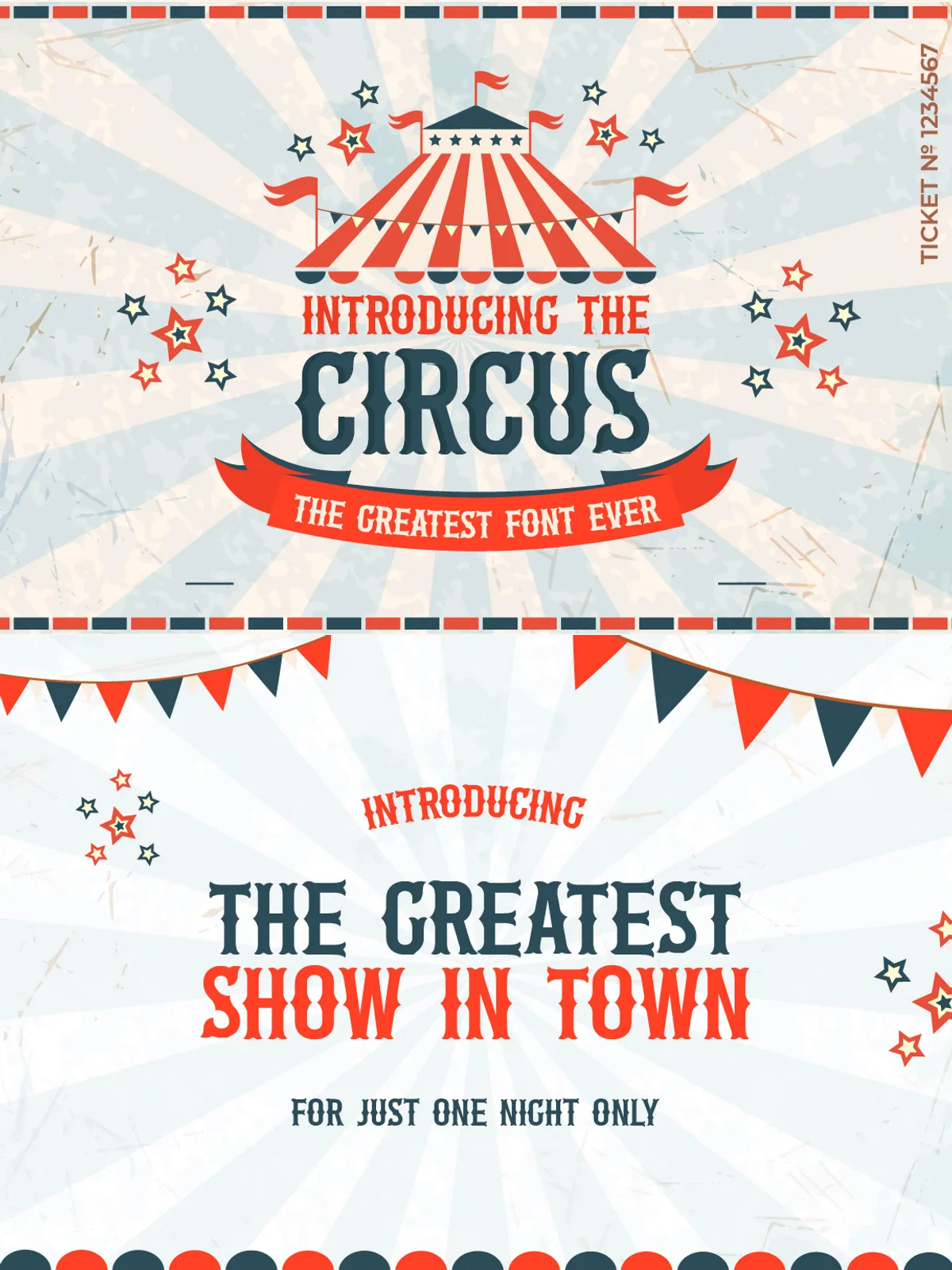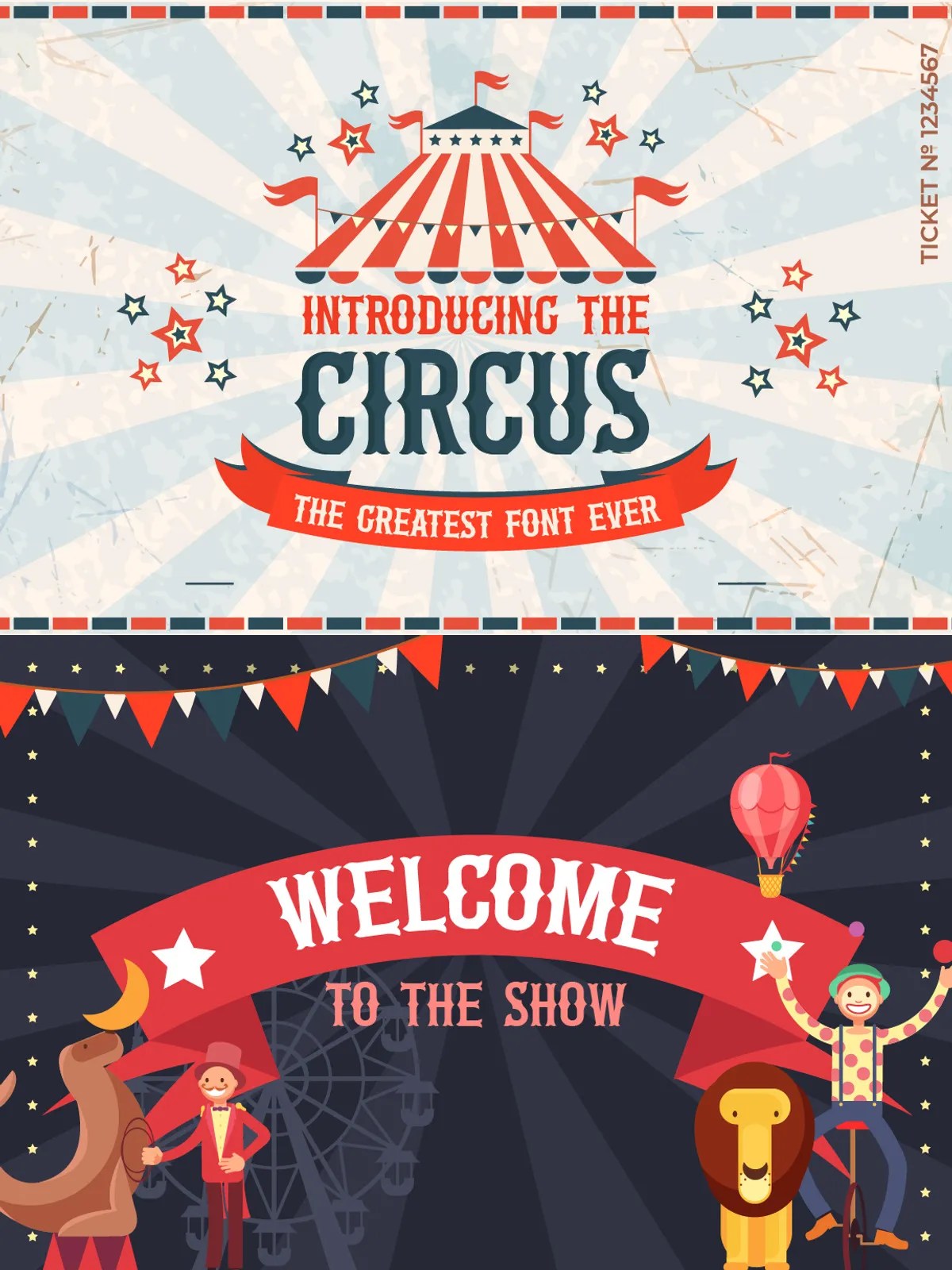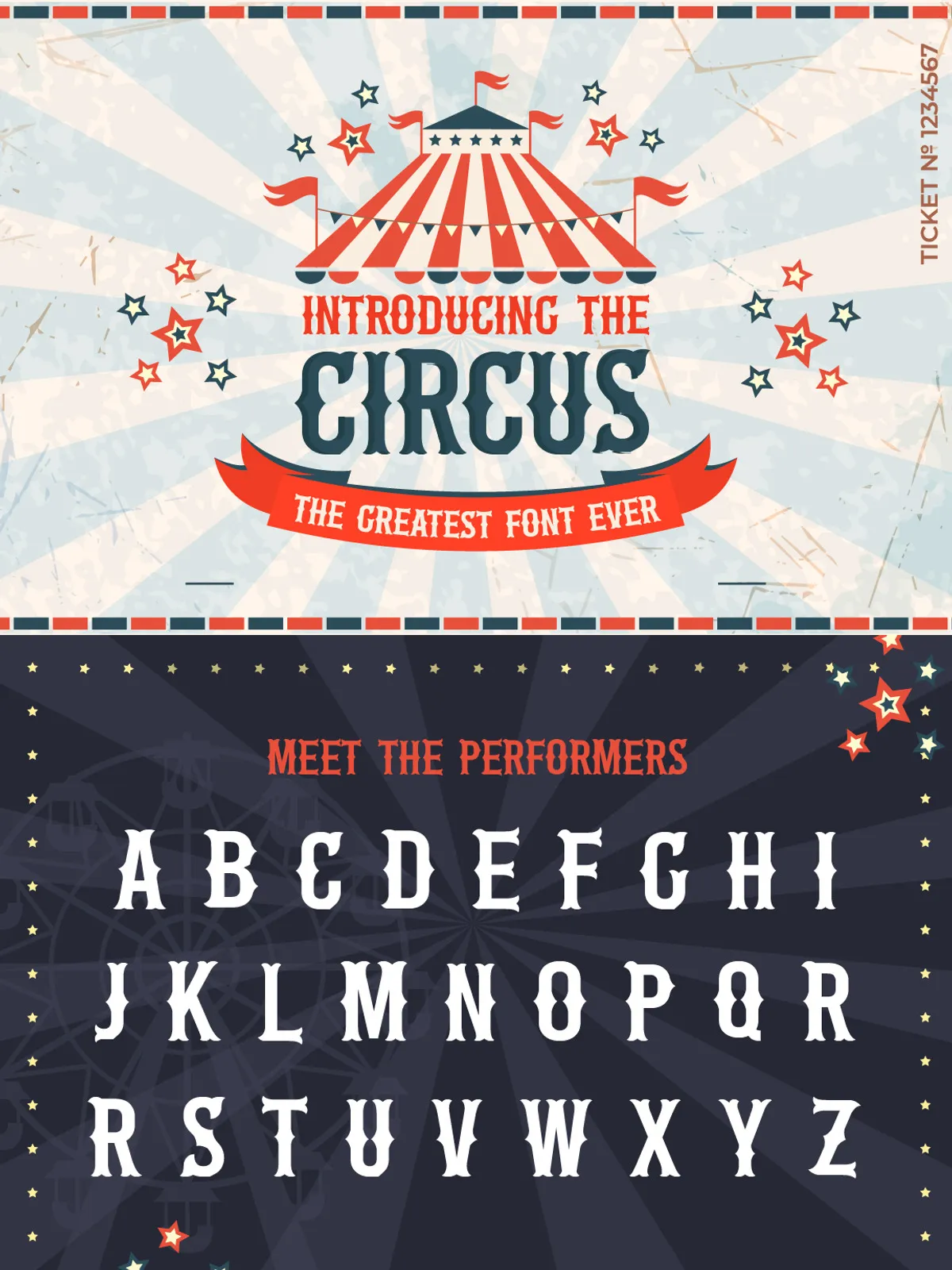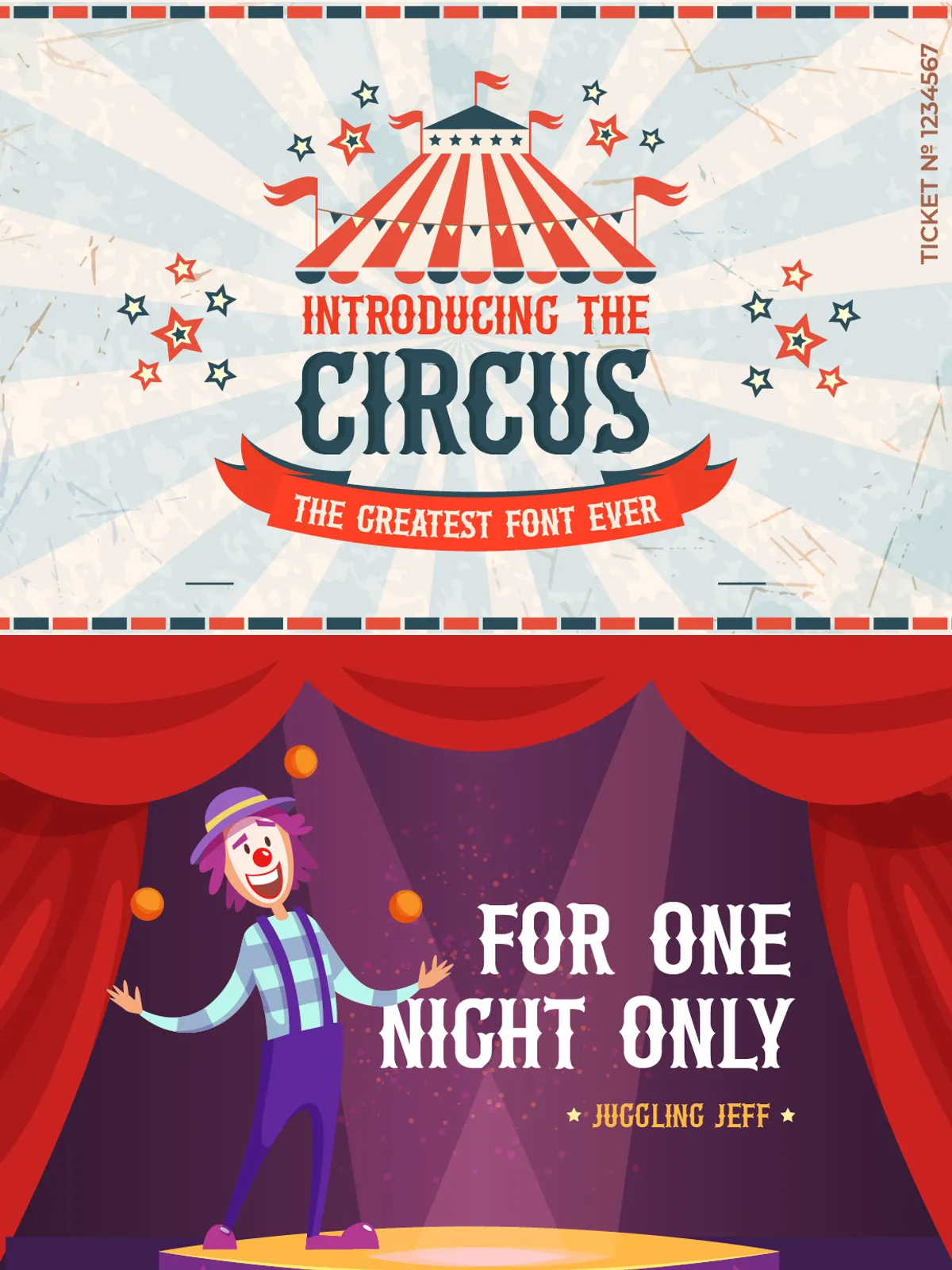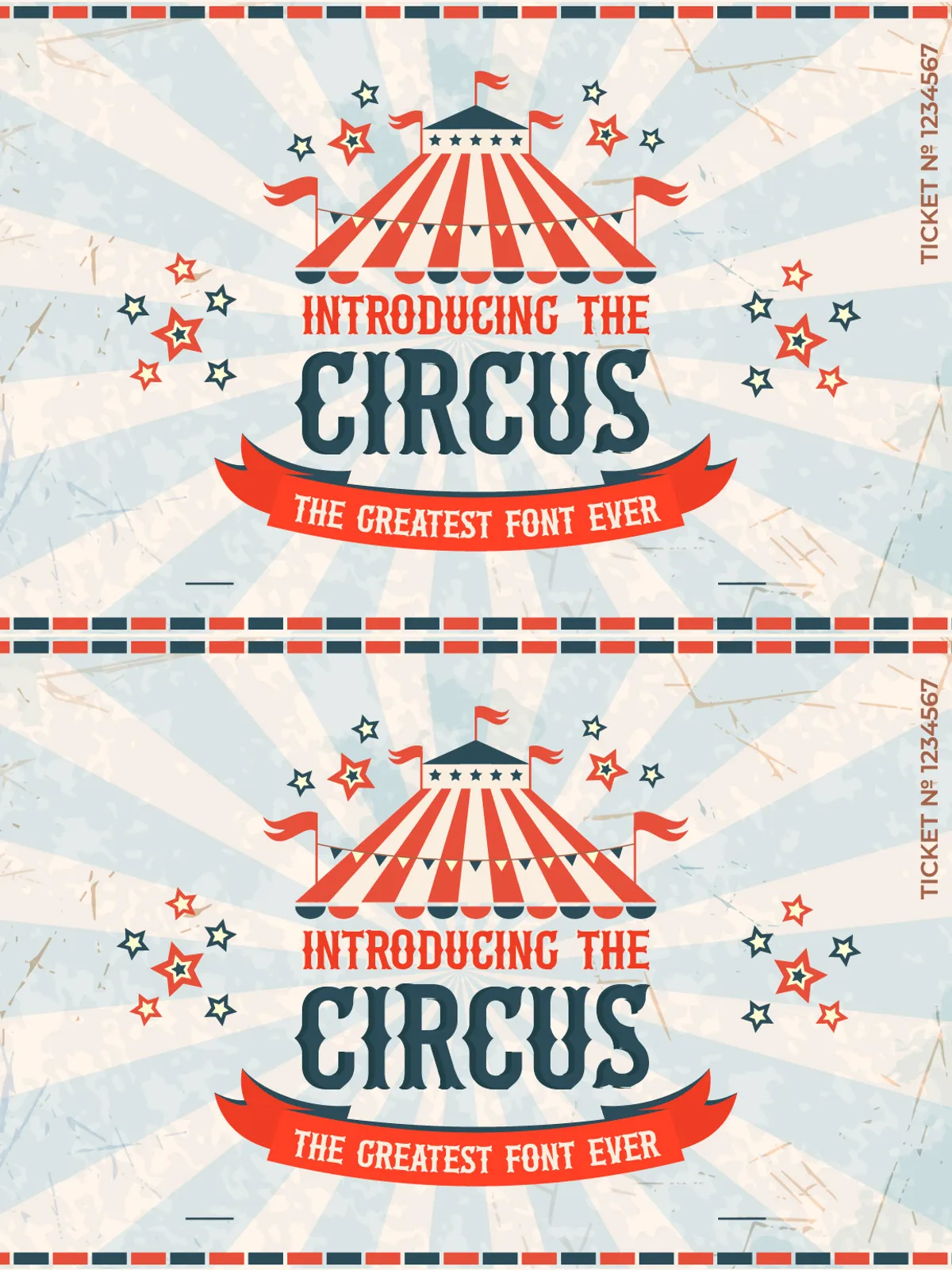
Welcome to the circus! Where all of the performers are happy to help with all of your design needs and with their quirky kicks and flicks, you’ll love them! Download now and use across a wide range of your work!